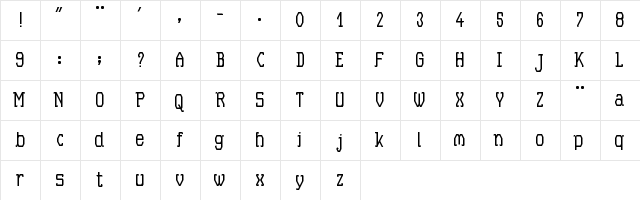
hook and line Regular
| Designer | pietyper |
hook and line takes a measured approach to typography — its balanced proportions and neutral character make it a reliable workhorse for both digital and print work.